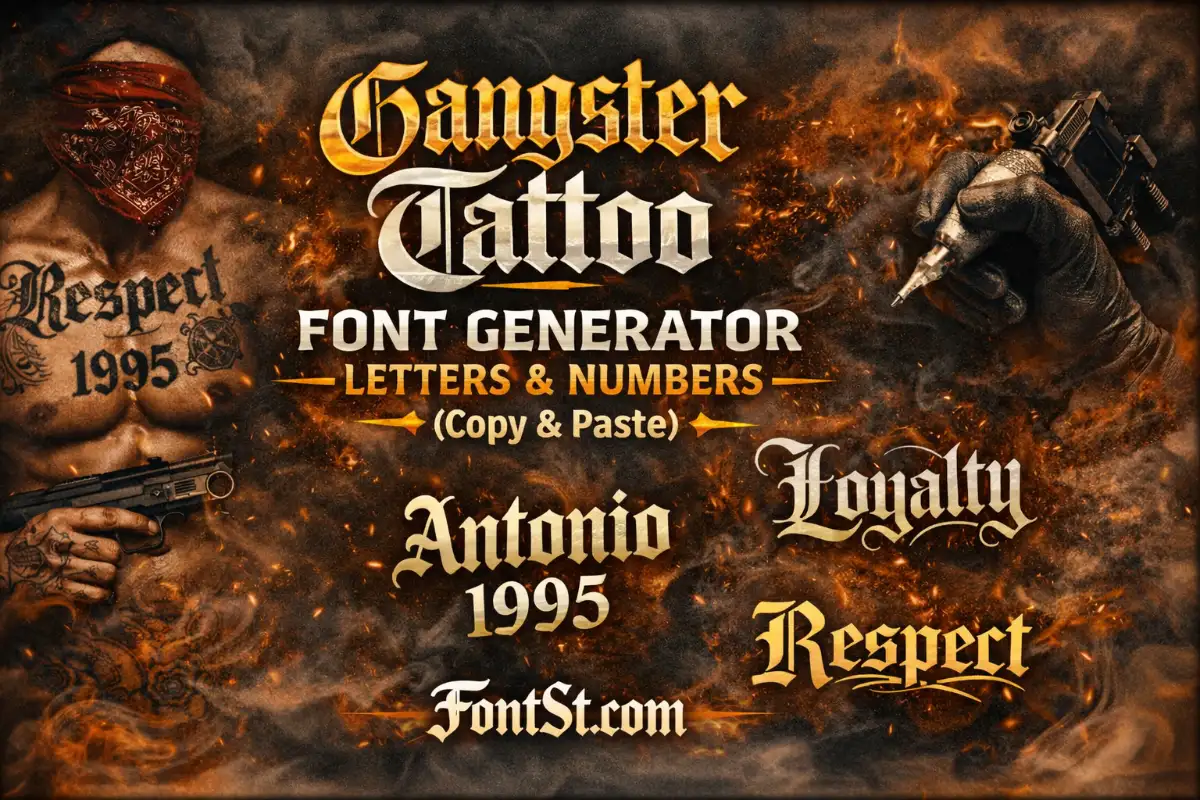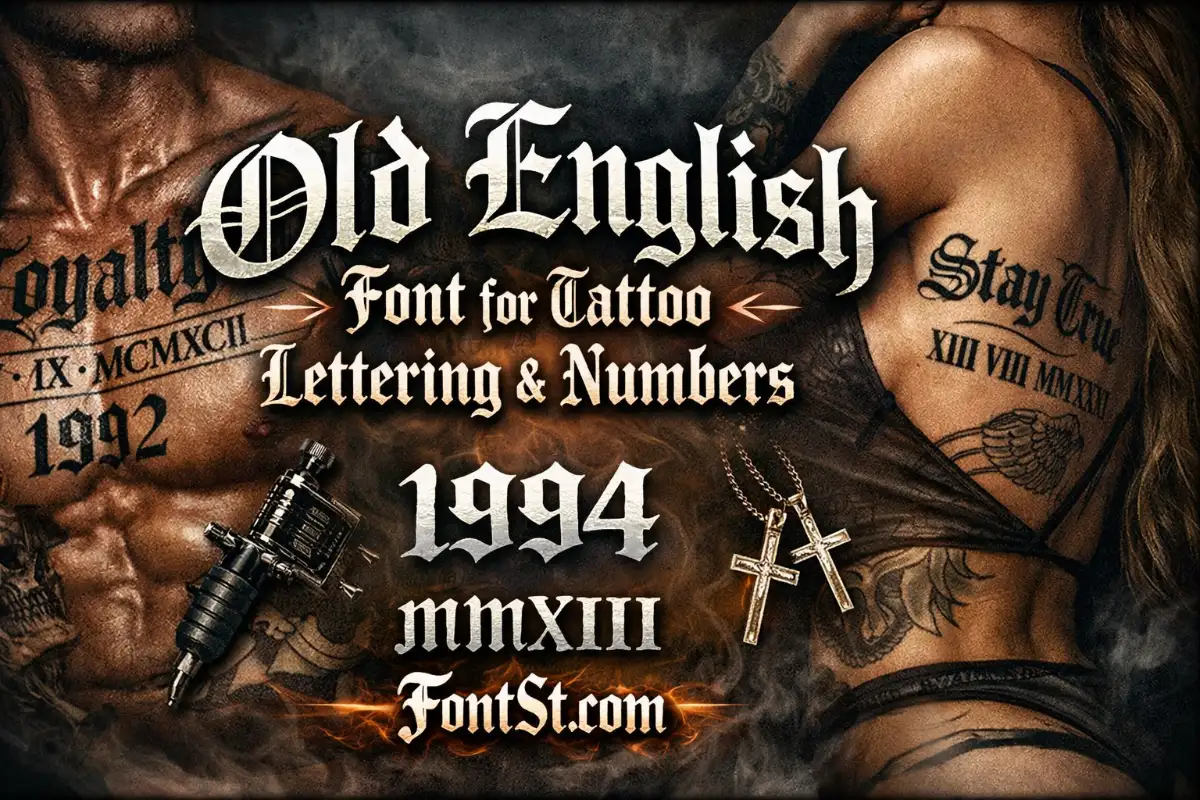
Tattoo Font Styles Generator – Alphabet, Numbers & Cursive
Preview tattoo-style lettering in seconds with FontSt’s Tattoo Font Styles Generator—perfect for names, initials, short quotes, and meaningful dates. Type your text, compare alphabet, numbers, and cursive styles, then save your favorites to share with your tattoo artist.
Tattoo lettering is personal—your font choice can change the entire mood of a name, date, or quote. This page helps you explore tattoo-style text that’s easy to preview, compare, and copy for planning. Use the generator to test different looks for names, initials, and short phrases, then save your favorites before you commit to ink.
Create a Tattoo Font That Matches Your Meaning
When people search create a tattoo font, they’re usually not trying to “invent” a new typeface from scratch—they’re trying to find a lettering style that fits the message. A tattoo font should match three things:
1. Tone: romantic, bold, minimal, vintage, or dramatic
2. Placement: wrist lettering reads differently than rib, shoulder, or forearm
3. Longevity: fine strokes can blur over time; overly decorative styles can lose clarity
A good workflow is to start with the meaning first (name, date, quote, symbol), then test several styles that fit the vibe. If you’re unsure, begin with readable options—clean cursive, classic serif, or simple script—then explore bolder styles like Old English or traditional lettering.
How to Use Font Maker for Tattoo Planning ?
If you’re looking for how to use font maker for tattoo planning, think of the generator as a “preview studio.” It’s best for exploring options and sharing ideas, not as a final design file.
Here’s the clean way to use it:
1. Type your exact text (name, quote, initials, or numbers).
2. Test short vs long versions (full name vs nickname; one line vs two lines).
3. Compare 3–5 styles side by side instead of trying twenty at once.
4. Decide on letter size by checking readability at small sizes—especially for wrist and finger tattoos.
5. Save your top picks (screenshot or copy into notes) to show your tattoo artist.
Important: A professional tattoo artist will usually refine spacing, stroke weight, and alignment to fit your body placement. The generator helps you choose direction and style quickly.
Tattoo Font Style Copy Paste: What It’s Good For
Tattoo font style copy paste is perfect for early-stage planning and sharing. You can copy a style into messages to show a friend or your artist what you mean—especially if you’re trying to describe a vibe like “elegant cursive” or “bold Old English.”
It’s most useful for:
• brainstorming name tattoos
• testing different scripts on the same phrase
• making a clean reference for “letter shapes” and spacing
• creating mock captions for inspiration boards
If a style looks broken on one device, try another style that uses simpler characters. Not every platform renders decorative Unicode consistently.
Tattoo Text Generator: Make Names and Quotes Easier to Visualize
A tattoo text generator is valuable because tattoo decisions are easier when you can see the words “in style.” The same quote can feel completely different depending on the lettering:
• Script / cursive feels intimate and personal
• Traditional / bold serif feels timeless and confident
• Old English feels dramatic and iconic
• Minimal text feels modern and clean
To keep it realistic, always test:
• your phrase in the final capitalization (all caps vs title case)
• punctuation (commas, apostrophes)
• spacing between words and line breaks
Short text benefits from strong character shape; longer quotes need readable rhythm and consistent spacing.
Tattoo Design Font Generator: Think Beyond “Just the Font”
A tattoo design font generator should be used with a designer mindset. Tattoo lettering is not only the font—it’s also:
• placement curve (straight line vs curved)
• alignment (centered, left, stacked)
• emphasis (one bold word, the rest simple)
• scale (tiny delicate vs large statement)
If you’re planning a name tattoo, test a few structures:
• First name only
• Full name
• Name + small symbol (heart, star, dot divider)
• Name + date underneath in smaller lettering
These decisions often matter more than choosing the “perfect” font immediately.
Best Tattoo Font Styles Ideas: A Practical Guide
When searching best tattoo font styles ideas, it helps to group styles by the kind of impression they create:
1. Elegant and personal: cursive handwriting, soft script
2. Classic and bold: traditional tattoo lettering, clean serif
3. Vintage and dramatic: Old English / blackletter styles
4. Cute and playful: rounded scripts, lighter decorative styles
5. Minimal and modern: simple sans serif or clean small caps styles
Instead of chasing a single “best font,” aim for the best match for your meaning, placement, and long-term readability.
Try more fancy font styles for tattoo ➜ Chicano Tattoo Lettering Generator
Alphabet Fonts for Tattoos
Alphabet fonts for tattoos matter most when you’re choosing initials, monograms, or single-letter tattoos. Look closely at:
• the shape of A, R, S, M (often the most distinctive)
• how curves connect in script letters
• whether uppercase letters look balanced in small sizes
Alphabet fonts for tattoos
A quick test: type your initials in the generator in both uppercase and lowercase, then compare. Many script styles have stronger lowercase flow, while serif styles often have more confident uppercase structure.
Number Fonts for Tattoos
Number font styles for tattoos are popular for dates (birthdays, anniversaries, coordinates). Numbers need to stay readable over time, so avoid overly thin, crowded styles.
Tips for cleaner number tattoos:
1. choose a style where 1, 7, and 9 are clearly distinct
2. avoid heavy decoration that makes 0/8 look similar
3. try both Roman numeral concepts (if you like that look) and standard digits
4. test spacing around separators like “/” or “•”
Number fonts for tattoos
If the date is meaningful, readability is part of honoring it—so choose clarity over extreme decoration.
Free tattoo generator ➜ Mirror Text Generator
Cursive Handwriting for Tattoos
Cursive handwriting for tattoos works because it feels human and intimate. But cursive also has the highest risk of becoming unreadable if it’s too thin or overly looped.
For good cursive choices:
• pick a script with clean connections (letters shouldn’t “tangle”)
• avoid extreme flourishes unless the tattoo is large
• test your word at small size—if you can’t read it instantly, simplify
Cursive shines for single names, short phrases, and signature-style quotes.
More cool font style ideas ➜ Gangster Font Generator
Gangster Font
Different Scripts for Tattoos
Different scripts for tattoos can add cultural, historical, or aesthetic flavor—script styles can feel romantic, ancient, minimalist, or bold.
When exploring different scripts:
• make sure the style matches the message (serious vs playful)
• check readability at the tattoo’s planned size
• avoid combining too many styles in one tattoo (it can look inconsistent)
A clean approach is to pick one primary script and one secondary style only if needed (like numbers in a simpler font under a script name).
Cursive font styles for tattoos ➜ Italic Font Generator (Copy And Paste)
Upside Down Text Generator
Traditional Tattoo Font
A traditional tattoo font typically looks bold, classic, and built for longevity. Traditional-style lettering often pairs well with old-school tattoo imagery (roses, daggers, anchors), but it also works as stand-alone text when you want a timeless feel.
Why traditional lettering works:
• thicker strokes age better
• strong shapes remain readable
• it looks intentional even at medium sizes
If your tattoo is meant to feel iconic rather than delicate, traditional lettering is a great direction.
Old English Font for Tattoo
An old english font for tattoo (often called blackletter) is dramatic and instantly recognizable. It’s great for short words, names, and strong themes—but it can become dense if the text is long.
How to use Old English well:
• keep text short (1–3 words is often ideal)
• avoid overly tight spacing
• choose a style with clear letter distinction (especially for C/G/O/Q)
Old English looks best when it has room and weight—don’t force it into tiny placements.
Fancy font styles ➜ Fancy Gangster Old English Font Generator
Best Lettering Tattoo Ideas
Searching best lettering tattoo ideas is really about composition. The most memorable lettering tattoos are designed, not just typed.
Ideas that stay clean and meaningful:
• a single word with strong spacing
• a short phrase broken into two lines
• a name with a small divider symbol
• a date in a clean font below a script name
• a phrase where one keyword is emphasized by a bolder style
A great lettering tattoo is one you can read instantly—even from a distance.
Lettering Name Tattoo Design
A lettering name tattoo design should prioritize clarity and emotion. Names are often placed on wrists, collarbones, forearms, or ribs—each area affects how text should be sized and spaced.
Try these planning tests:
• nickname vs full name (which feels more personal?)
• title case vs lowercase (lowercase often looks softer)
• straight vs slight curve (depending on placement)
If the name is someone important, keep it readable and timeless. Trendy distortion styles can feel dated faster.
Fonts for script tattoos ➜ Glitch Text Generator Copy And Paste
Glitch Text Generator
Cute Tattoo Fonts for Names
Cute tattoo fonts for names usually lean toward rounded, friendly scripts or lighter decorative styles. They’re popular for small placements and personal vibes.
To keep “cute” from becoming messy:
• avoid overly swirly scripts
• choose clean letter forms
• keep the name short
• consider adding a simple symbol rather than extra flourishes
Cute works best when it’s minimal and balanced.
Tattoo Fonts for Men
Tattoo fonts for men often trend toward bold, confident styles—traditional lettering, strong serif fonts, clean uppercase, or Old English for dramatic impact.
If you want a strong look:
• try uppercase with wide spacing
• choose a thicker stroke style
• keep words short and direct
• avoid overly delicate scripts unless that’s the intended contrast
The best “masculine” lettering is simply the lettering that fits your story and placement.
Great fonts for tattoos ➜ Small Caps Font Generator
Tattoo Fonts for Women
Tattoo fonts for women are often associated with elegant cursive and fine-line lettering, but there’s no one rule—many people choose bold or Old English styles too.
If you want elegant lettering:
• choose a clean cursive with readable connections
• keep it short and well-spaced
• avoid super-thin strokes for tiny tattoos (they may blur over time)
For a modern aesthetic, minimal serif or clean small caps can look incredibly refined.
More unique tattoo fonts and lettering ➜ Upside Down Text Generator
Upside Down Text Generator
FAQ – Tattoo Font Gen
What is a tattoo font gen?
A tattoo font gen is a quick way to preview different tattoo-style lettering for names, quotes, and dates. It helps you compare styles before choosing a direction for the final design.
What is a good font for tattoo lettering?
A good font for tattoo text is readable at the size you want, matches the meaning, and uses strokes that will age well. Clean script, classic serif, and traditional lettering are usually safe starting points.
Are tattoo fonts cursive always a good choice?
Tattoo fonts cursive can look elegant and personal, but they should stay readable—especially in small placements. Choose a cursive style with clear letter shapes and avoid overly tight loops.
Is there a free tattoo font maker I can use online?
Yes—FontSt works as a free tattoo font maker for planning and previewing styles. You can type text, generate options, and copy styles to save and share.
How does a tattoo font converter work?
A tattoo font converter transforms normal text into decorative Unicode-style lettering you can preview and copy. It’s great for inspiration, but a tattoo artist will refine spacing and stroke details for the final stencil.
Is a calligraphy font for tattoo better than script?
A calligraphy font for tattoo often looks more “inked” and expressive than simple script, but it can also get busy. If you want a clean result, pick calligraphy styles with controlled flourishes and test them at the final size.
Final Tips Before You Commit
• Test your text at the size you actually want.
• Keep it readable from normal viewing distance.
• Use the generator to narrow to 2–3 favorites, then let your tattoo artist refine the final layout.
• Don’t rush—lettering tattoos are all about lasting clarity and meaning.